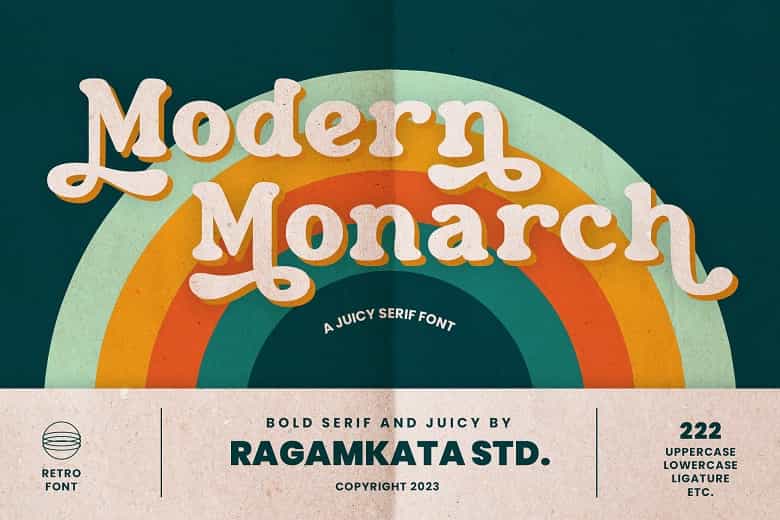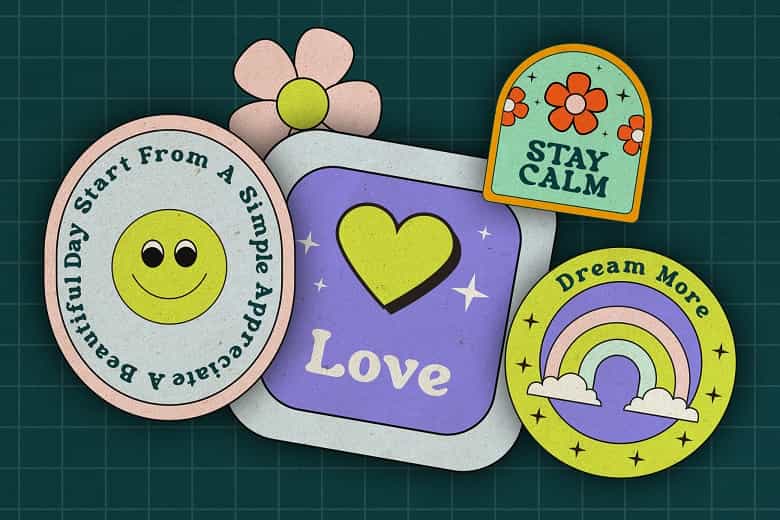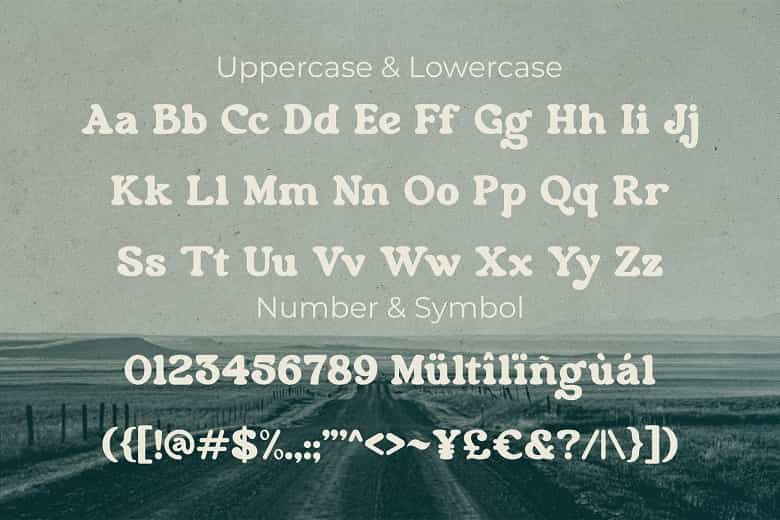
Modern Monarch is a display retro font with a serif style that has an old school feel and yet a strong and powerful look. This font has a retro look and gives a classy and old school touch to the text that is used. Every single letter in the design is done with precision and each element is well-proportioned which gives it a very appealing look.